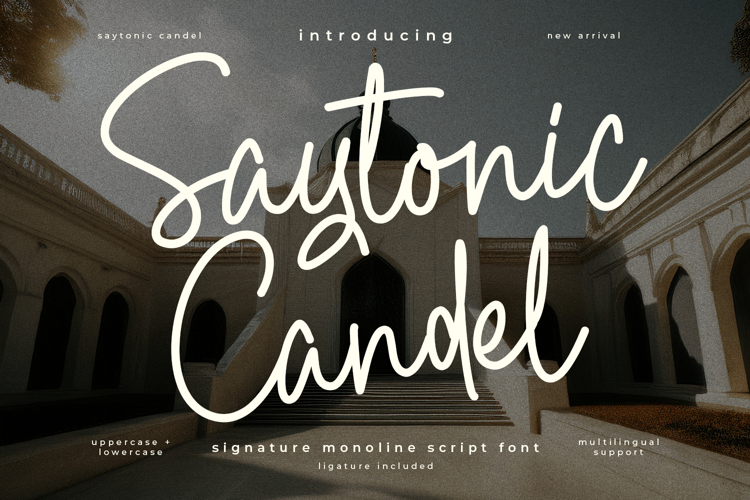
Saytonic Candel Signature Script
Saytonic Candel is an elegant monoline script font that captures the fluid beauty of natural handwriting. Featuring a seamless and flowing stroke, this typeface includes complete uppercase and lowercase letterforms, distinct ligatures, numbers, punctuation, and comprehensive multi-language support.
Its authentic signature style makes it an exceptional choice for luxury branding, sophisticated wedding invitations, corporate logos, high-end packaging, social media graphics, digital content creation, and premium stationery design. Bring a touch of refined class, modern aesthetics, and effortless grace to any creative project.
- Full character set (Uppercase & Lowercase)
- Numbers, Punctuation, and Symbols
- Ligatures for a natural handwriting flow